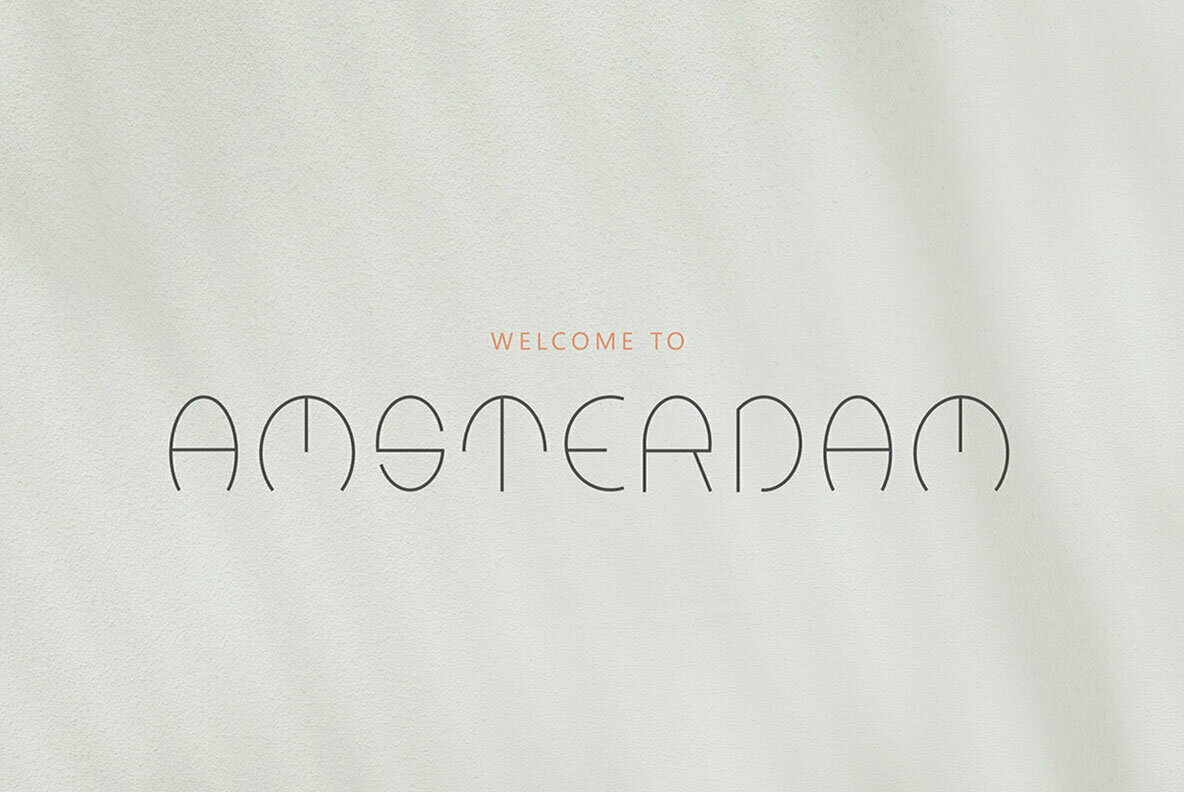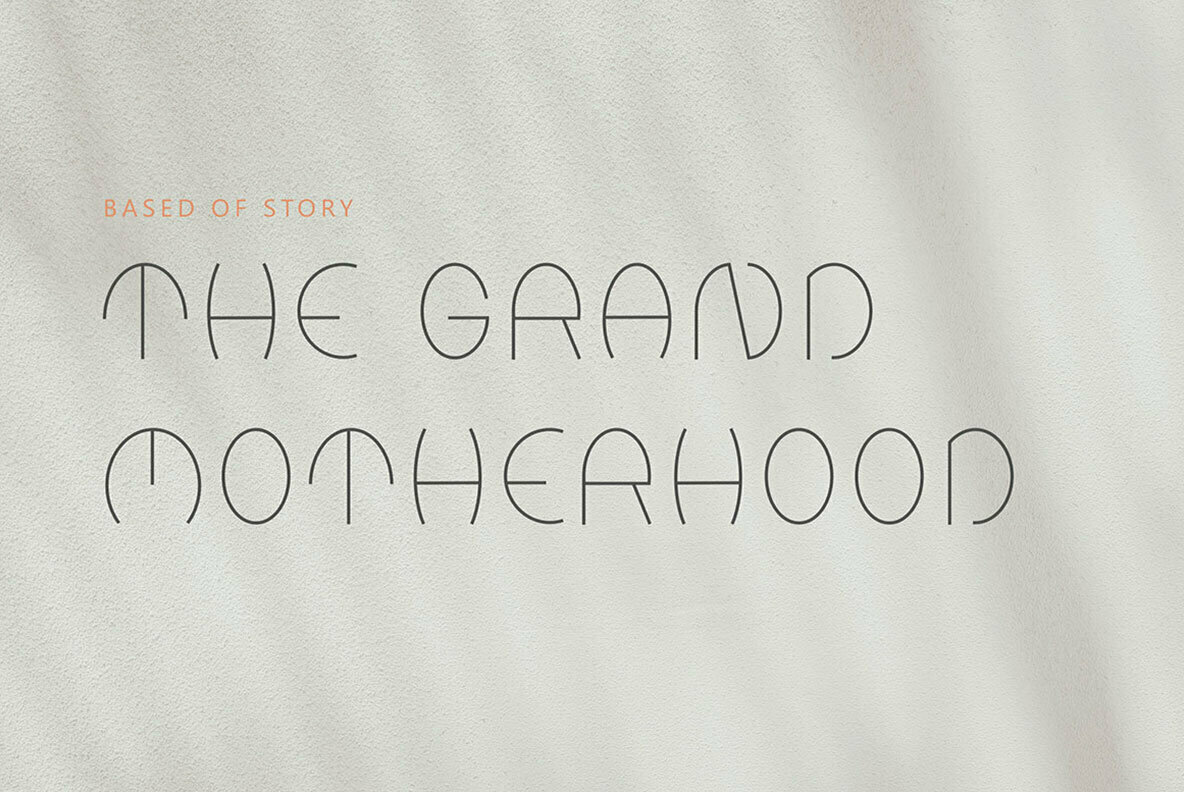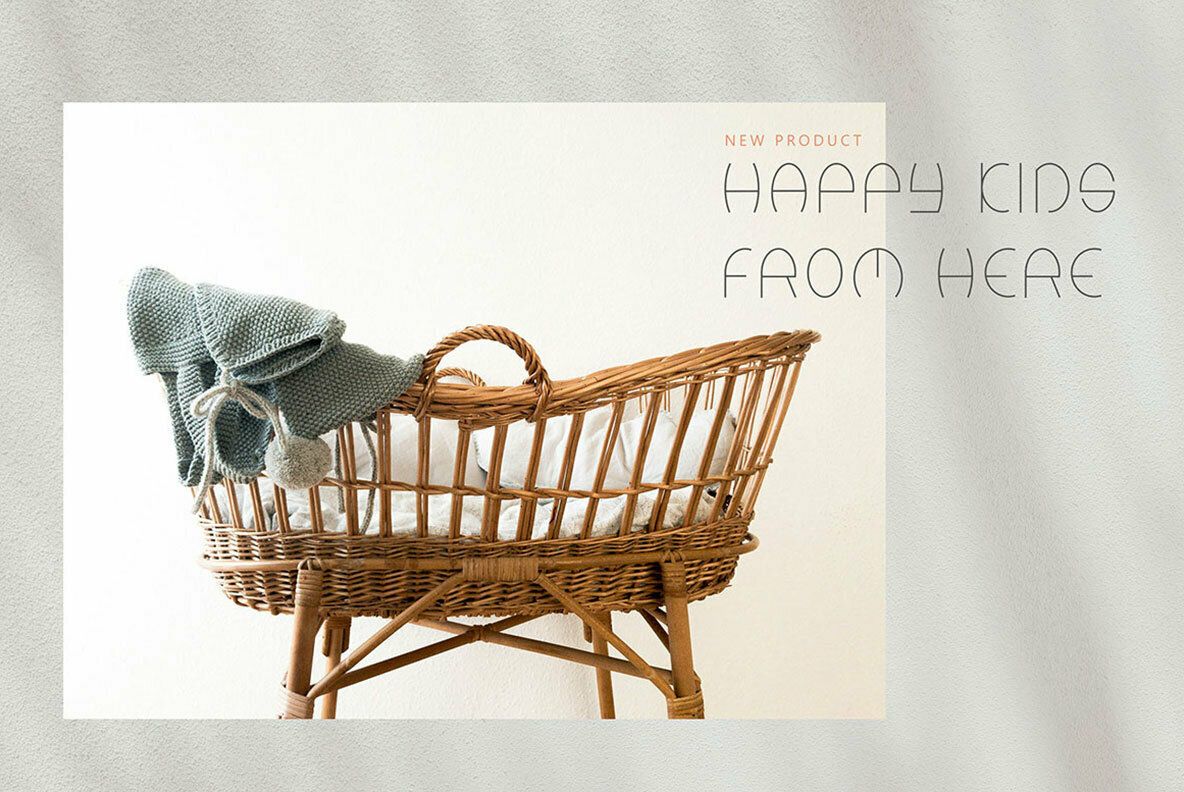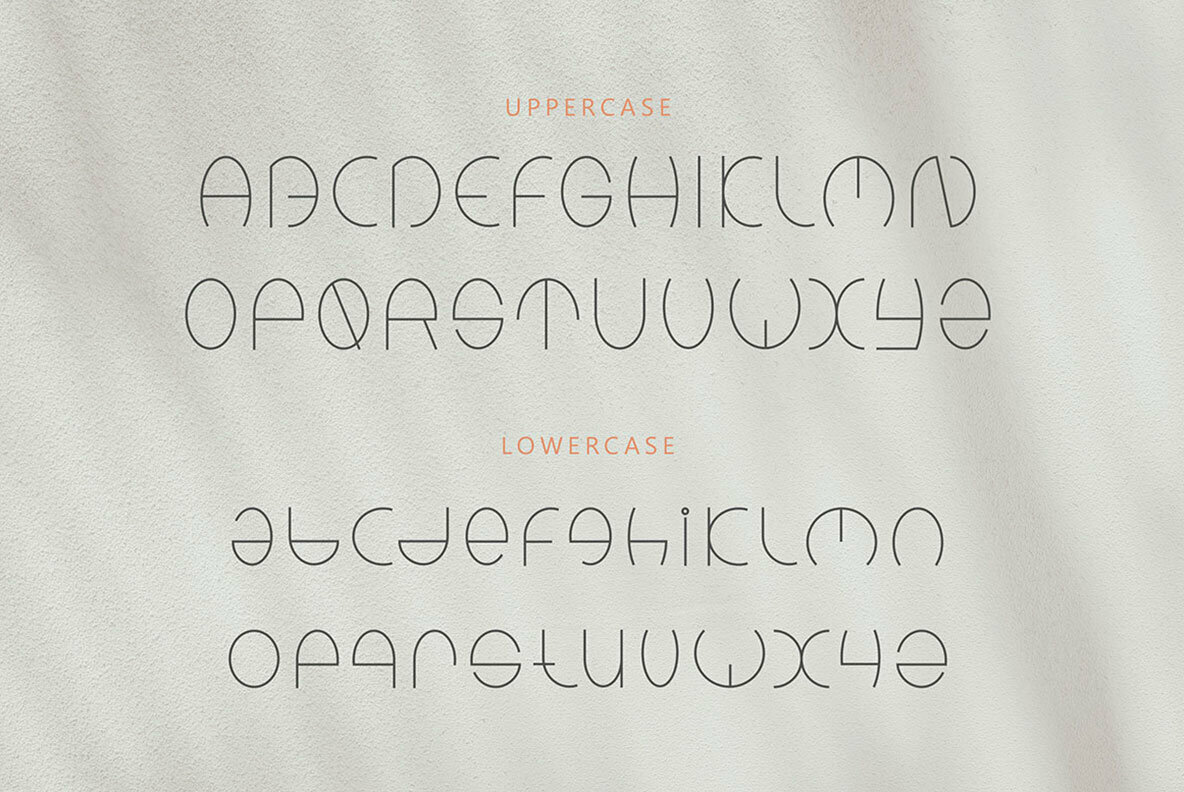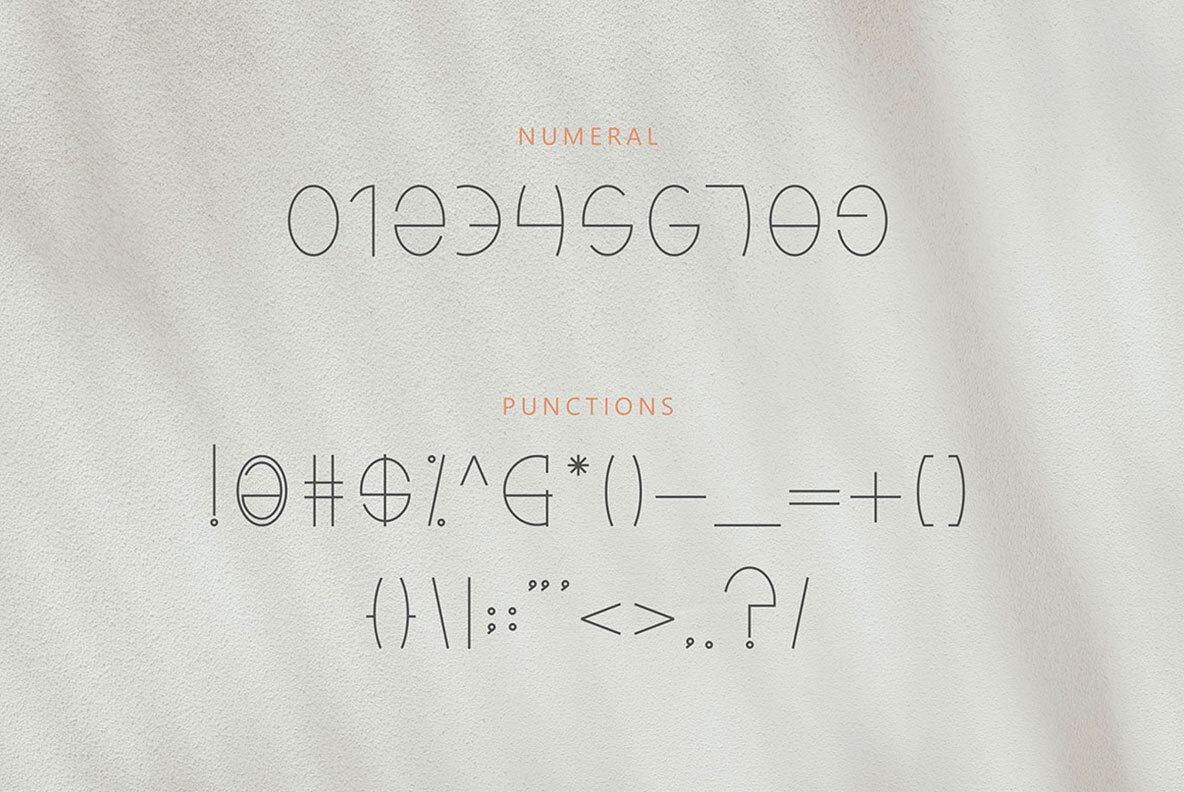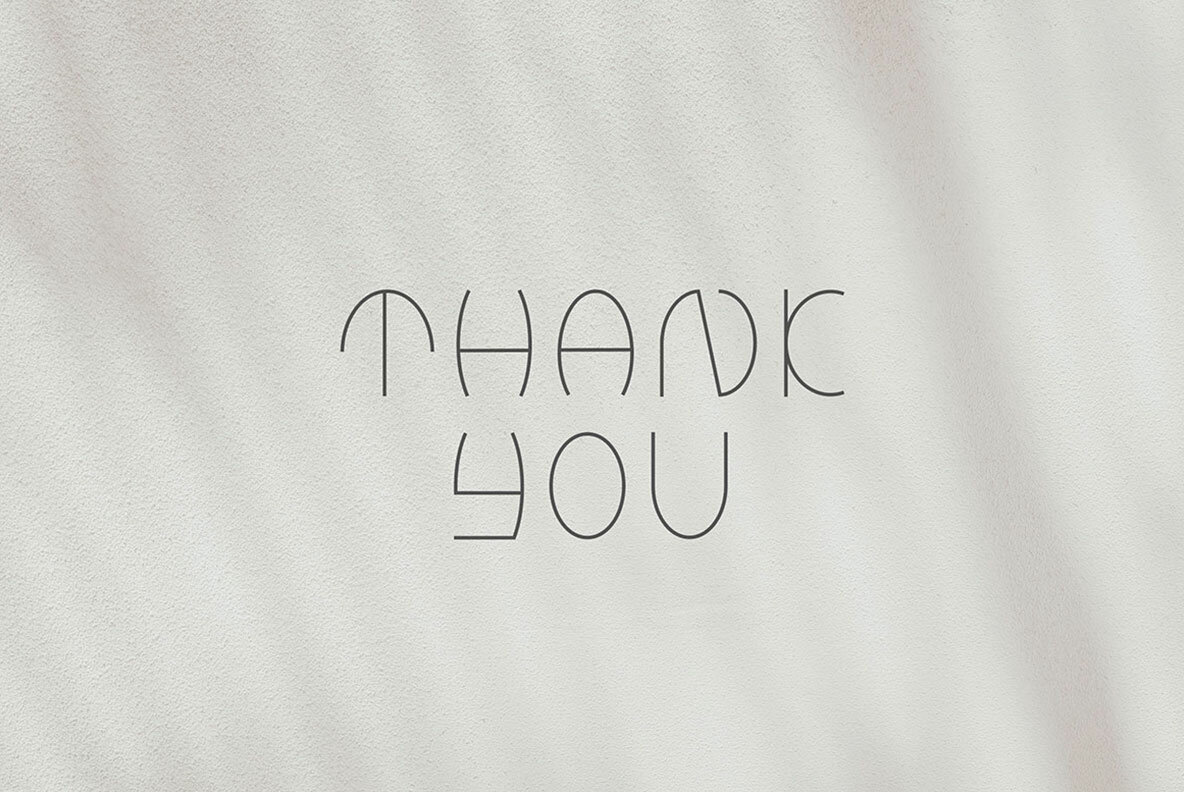
Kinders Font
Kinders
The Kinders typeface captivates with its thin linear design, bringing elegance to every letter. This modern font offers both readability and style, making it an ideal choice for a wide range of design projects. Whether crafting a logo or designing a magazine, Kinders fits effortlessly, adding a touch of sophistication and flair. The Kinders font is exceptionally versatile, enhancing professional designs such as:Kinders Typeface: A Thin Linear Classic
Applications and Versatility